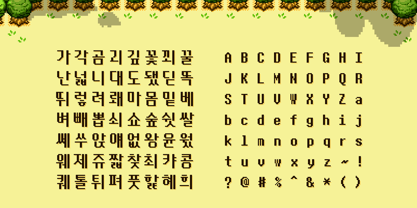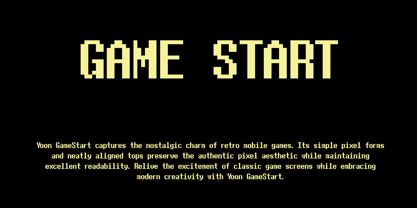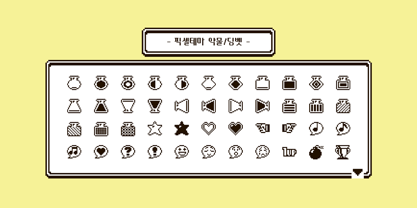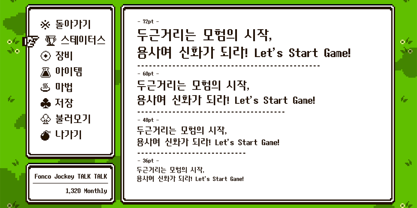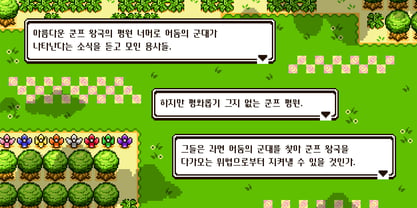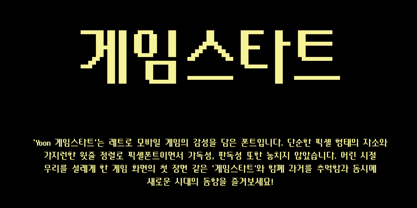
Yoon GameStart
Yoon GameStart captures the nostalgic charm of retro mobile games. Its clean pixel forms preserve authentic 8-bit aesthetics while maintaining sharp readability across modern digital screens.
Family size: A single weight.
Glyph count: 11,172 hangeul glyphs, 95 Latin glyphs, 985 KS symbols, and 10 dingbats.
Language support: Multi-lingual support for English, Korean, and more.
Designers: Yoon Design Team
Foundry: Yoon Design